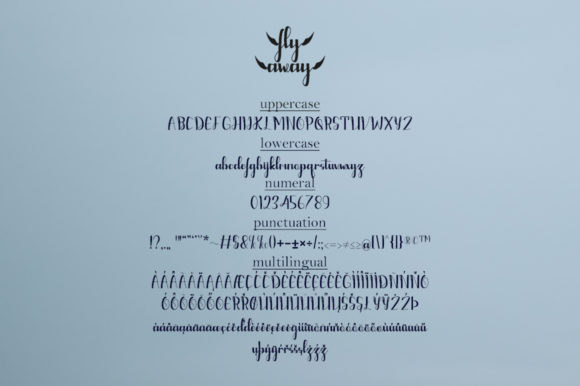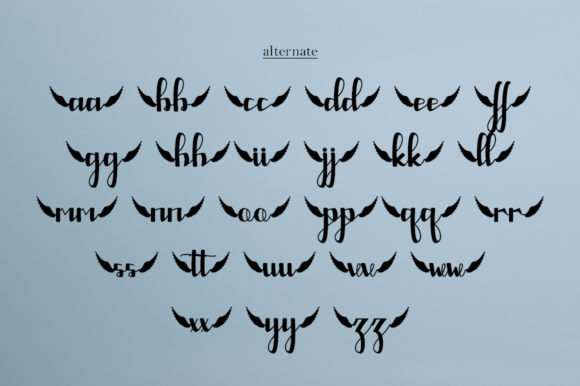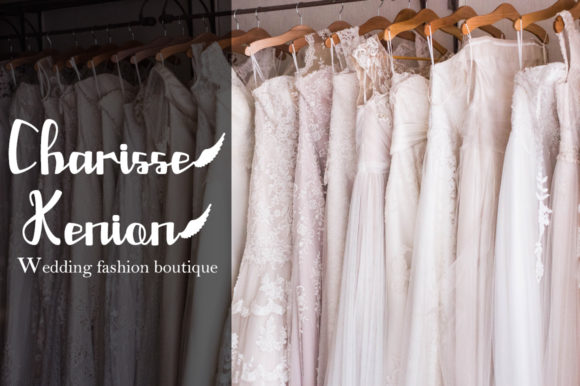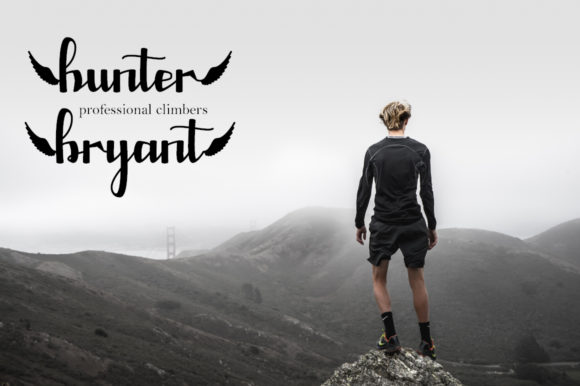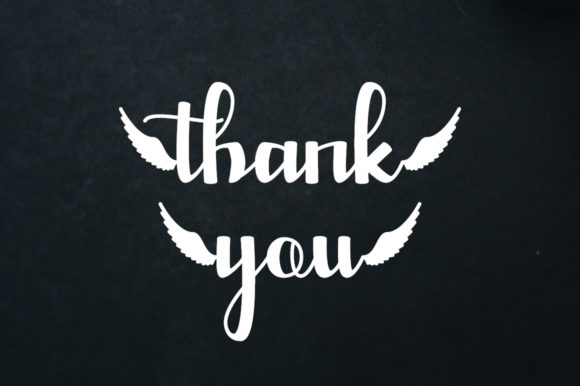
Introducing Fly Away Font: A Delicate Handwritten Beauty
Are you a designer or crafter looking for a unique and elegant font to elevate your creative projects? Look no further than Fly Away Font, a lovely and delicate handwritten font that is sure to capture your heart. This beautiful font features sweet feathers as ornaments, adding a touch of whimsy and charm to any design.
A Beautifully Crafted Font
Fly Away Font is a meticulously crafted font that boasts beautiful and well-balanced characters. Each letter is carefully designed to be harmonious and visually appealing, making it perfect for a wide range of designs. Whether you’re creating a romantic wedding invitation, a charming greeting card, or a delightful packaging label, Fly Away Font is sure to add a touch of elegance and sophistication.
One of the standout features of Fly Away Font is that it is PUA (Private Use Area) encoded. This means that you can access all of the glyphs and swashes with ease, giving you complete creative control over your design. With PUA encoding, you can effortlessly navigate the font’s extensive character set, including the beautiful feather ornaments that make Fly Away Font so unique.
Perfect for a Wide Range of Designs
Fly Away Font’s versatility is one of its greatest strengths. Its delicate and elegant design makes it suitable for a wide pool of designs, from feminine and romantic to playful and whimsical. Here are just a few examples of the many design projects where Fly Away Font would shine:
- Packaging labels and branding materials
- Digital art and illustrations
Why Designers and Crafters Love Fly Away Font
So, what makes Fly Away Font a favorite among designers and crafters? Here are just a few reasons:
- Unique and eye-catching design: Fly Away Font’s feather ornaments and delicate script make it a standout font that’s sure to grab attention.
- Versatility: Fly Away Font’s elegant and adaptable design makes it suitable for a wide range of projects and design styles.
- Experiment with feather ornaments: Use the font’s feather glyphs to add a touch of whimsy and charm to your design.
- Play with swashes: Fly Away Font’s swashes are perfect for adding a flourish to your design. Try experimenting with different swash combinations to create a unique look.